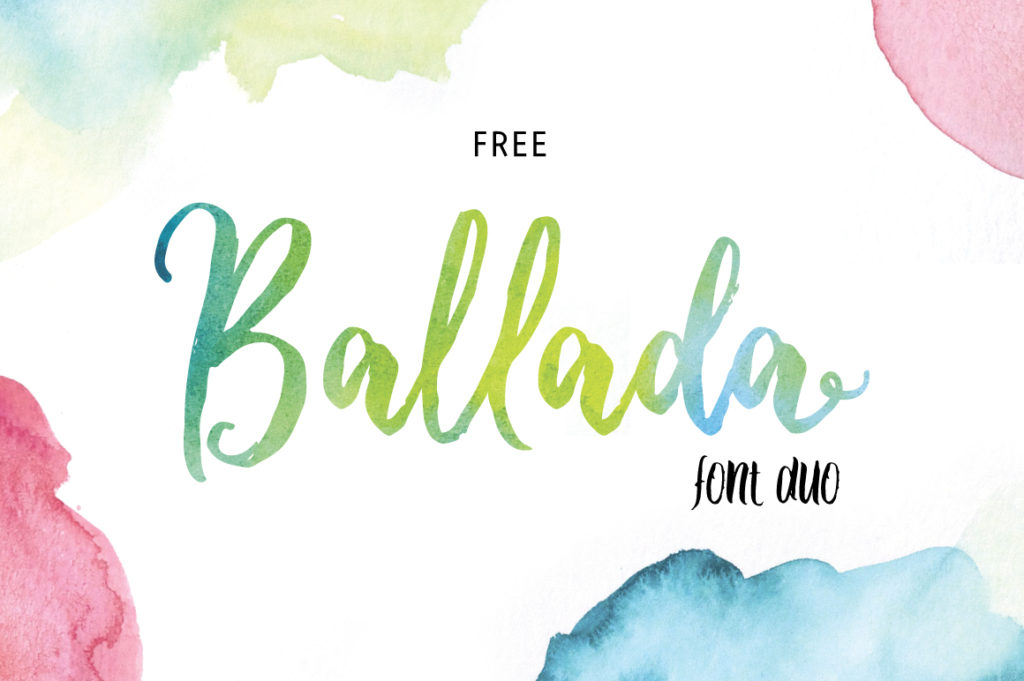
Free Ballada Font Duo
Ballada Font Duo by thirtypath is a free brush typeface font type in TTF and OTF format. The font is available for free for personal and commercial use.